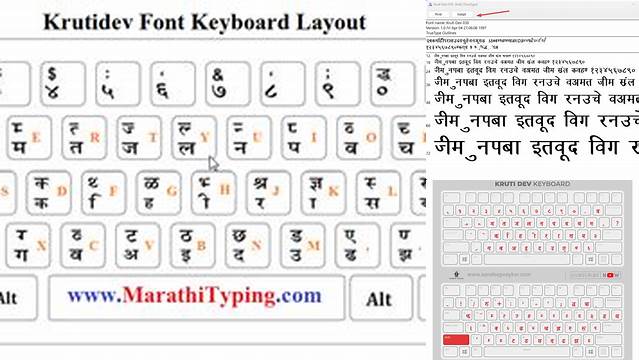
Kruti Dev Font: The Gateway to Marathi Typing
Guys, first things first: What exactly is Kruti Dev Marathi font? Simply put, it's a font specifically designed to allow you to type in the Marathi language using your standard English keyboard. This is a lifesaver, trust me! Before Kruti Dev, typing Marathi on a computer was a real headache. You either needed a special keyboard or a complex transliteration system. Kruti Dev changed all that. It's user-friendly, intuitive, and makes typing in Marathi a breeze. The beauty of Kruti Dev lies in its simplicity. Once installed, you can switch between English and Marathi with a simple keyboard shortcut. The characters are mapped in a way that's easy to remember, and you'll be typing fluent Marathi in no time. For those of you new to the Marathi language or just getting started with digital Marathi, Kruti Dev is an essential tool. It allows you to create documents, send emails, and even chat with friends and family in Marathi without any hassle. There are many different versions of the font available, but they all share the same basic functionality, allowing you to type in the Marathi script. This makes it a popular choice for both personal and professional use. You can download the font and it will allow you to create documents, send emails, and even chat with friends and family in Marathi without any hassle. Kruti Dev font is a game-changer for anyone needing to type in Marathi on their Windows 7 device. It has become a go-to solution for many. The Kruti Dev Marathi font is an easy way to type in Marathi. Whether you're writing letters, creating presentations, or simply chatting with family, the process becomes very straightforward. The font is a bridge, connecting you to the Marathi language through your familiar keyboard. The fact that it is mapped to the English keyboard makes it easy to learn. Trust me, with a little practice, you’ll be typing in Marathi like a native speaker.
Understanding the Basics of Kruti Dev
Before jumping into the Kruti Dev Marathi font free download for Windows 7, let’s get a solid understanding of what it’s all about. At its core, Kruti Dev is a font that allows you to type Marathi characters using your regular English keyboard. It achieves this through a clever mapping system. Each English key corresponds to a specific Marathi character. This means you don't need a special Marathi keyboard or complicated input methods. The layout is designed to be intuitive, allowing you to quickly learn and remember the key mappings. This ease of use has made Kruti Dev a favorite among Marathi speakers who need to type on computers. The font simplifies the process and eliminates the learning curve associated with complex typing systems. The key mappings are usually consistent across different versions of the font. So, once you learn the basics, you can easily use Kruti Dev on various devices and software. The design of the font also ensures that Marathi text looks natural and readable. So, with Kruti Dev Marathi font, you're not just typing; you're communicating in a way that feels authentic and true to the language. It's all about making the transition from English to Marathi as smooth as possible, so you can focus on your content and message. You will appreciate how it has simplified the typing experience, making it easier for you to create documents, communicate with others, and participate in online discussions. The ease of use is a great advantage of this font.
Key Features and Benefits of Using Kruti Dev
Let's talk about the awesome features and benefits you get when using Kruti Dev Marathi font. First off, it’s super user-friendly. No need to learn a complex system. You can start typing in Marathi almost immediately. The key mappings are designed to be intuitive, so you’ll quickly memorize where the characters are located on your keyboard. This is a massive time-saver compared to learning a whole new typing system. Secondly, it supports all the essential Marathi characters. Whether you're writing a formal document or just sending a quick message, Kruti Dev has you covered. You get a full range of characters. It works seamlessly with Windows 7. The font integrates smoothly with various applications, from word processors to email clients. You won’t have to worry about compatibility issues. You can easily switch between English and Marathi typing with a simple keyboard shortcut. This makes it easy to insert Marathi words into your English text without any hassle. Using Kruti Dev Marathi font free download for Windows 7 offers several key advantages. The convenience of using your familiar English keyboard is a huge plus. You can type Marathi without having to buy a new keyboard. The font ensures your text looks professional and consistent. It offers a complete set of characters. You will be creating text documents that are visually pleasing. This is why it is important for both personal and professional projects. The font’s simplicity and effectiveness have made it a go-to choice for Marathi speakers. It has simplified the typing experience and made it easier to create, communicate, and connect in the Marathi language. You will see that this is an essential tool that supports the Marathi language.